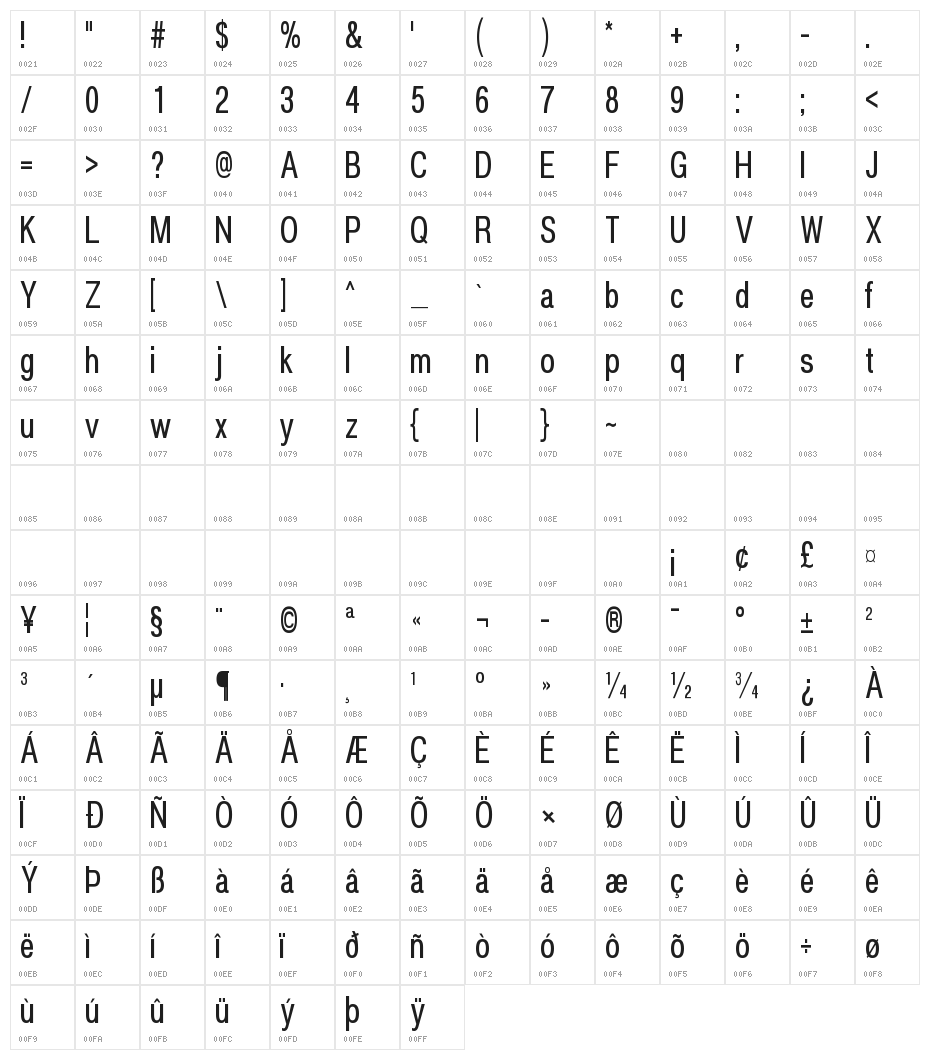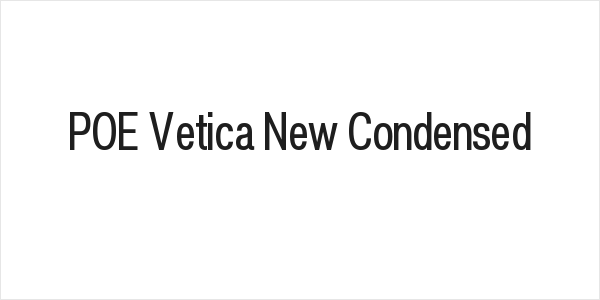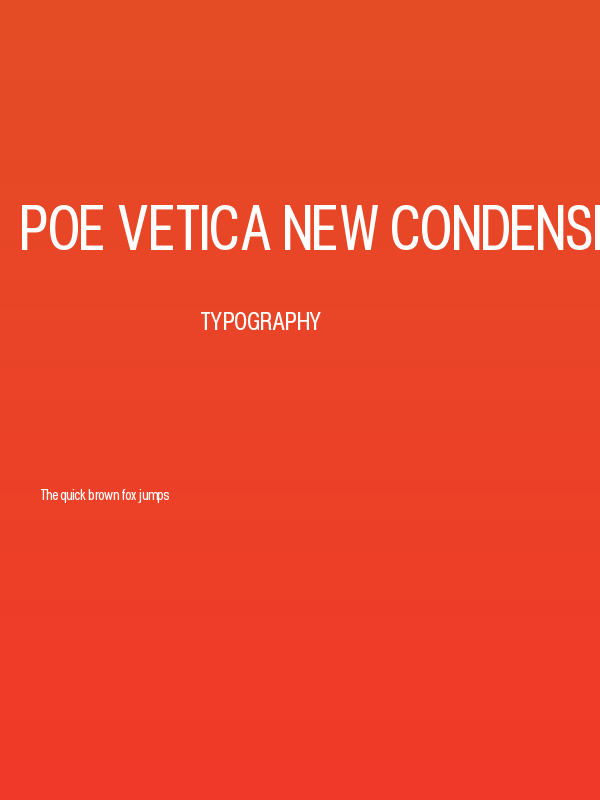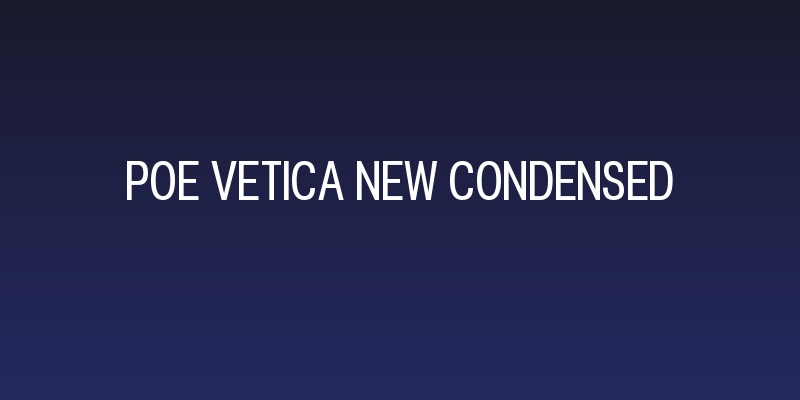
POE Vetica New Condensed Font
POE Vetica New Condensed Description
This font features a clean and modern sans-serif style with a condensed width, making it ideal for space-saving designs. The characters are uniform and well-balanced, providing excellent readability. The uppercase letters are bold and prominent, while the lowercase letters maintain a consistent height, enhancing the overall legibility. The numerals are clear and distinct, suitable for both digital and print media. Special characters are well-defined, adding versatility to the font's application. Its simplicity and clarity make it a great choice for professional and contemporary projects.
| Use Case | Headlines, Logos, Editorial |
| Proposed Projects | Ideal for branding, advertising, web design, and editorial layouts where space is limited. |